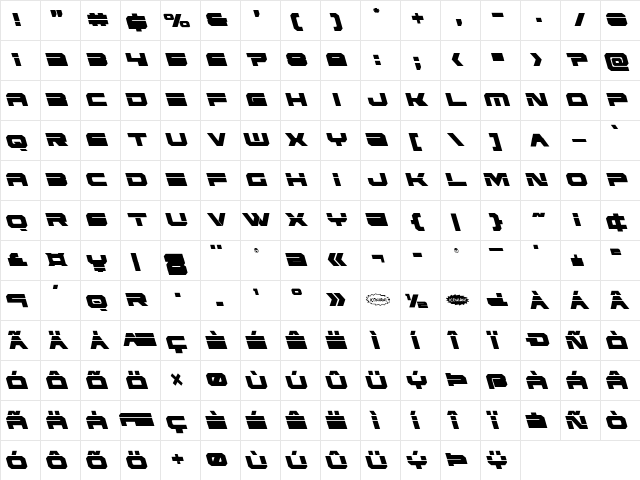
Eridanus Condensed Leftalic Condensed Italic Font Preview
Design Context for Eridanus Condensed Leftalic Typeface
Eridanus Condensed Leftalic is a composed and adaptable typeface that performs quietly and consistently across a wide range of design contexts. The dynamic lean of this cut emphasises speed and emphasis in any layout. The condensed width makes it efficient for tight spaces without sacrificing legibility.
Pro Tip: Use Eridanus Condensed Leftalic for emphasis, pull quotes, and subheadings where its slanted energy can add rhythm to the layout.